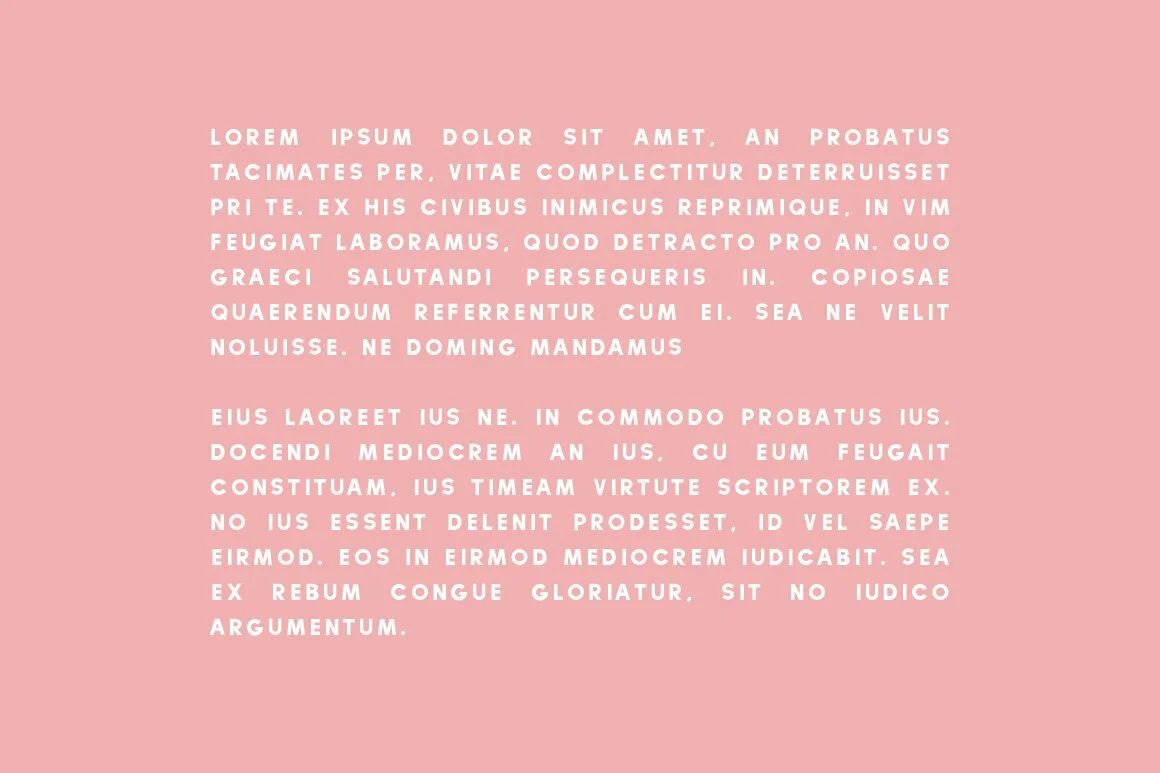
Fonts › Daughter Image 1 of 5 Image 2 of 5 Image 3 of 5 Image 4 of 5 Image 5 of 5 Daughter $15.00 Add To Cart Added! A bold and modern sans serif font. Test It Out A bold and modern sans serif font. Font Size: 40px Letter Spacing: 0px Reviews Reviewer Name Review Date Star Rating Description Posted on Etsy Product Show More You Might Also Like Hotel Foxtrot $15.00 Fox & Bower $15.00 Happy Camper $15.00 Grape Soda $15.00 Papercut $15.00